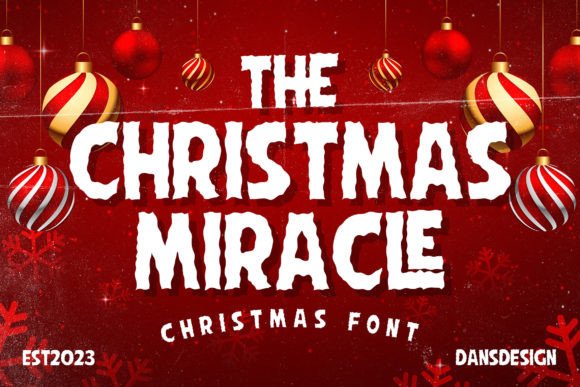
Introducing The Christmas Miracle Font, a delightful and charming addition to your font collection. Created by Dansdesign, this Comic display font is designed to bring a burst of joy and playfulness to your designs. With its unique style and captivating appeal, it is the perfect choice for adding a touch of magic to any project.
This font is not just your ordinary display font; it is a cute and sweet companion that will make your designs come alive. Whether you are designing a modern resume, a holiday greeting card, or a festive poster, The Christmas Miracle Font will instantly elevate your creations to a whole new level.
Imagine the reactions you will receive when your audience sees your designs adorned with this enchanting font. It will captivate their attention and evoke a sense of wonder and excitement. The Christmas Miracle Font is the key to making your creations unforgettable and standing out from the crowd.
With its eye-catching and playful character, this font is perfect for adding a whimsical touch to children's books, party invitations, or even social media graphics. It effortlessly conveys a lighthearted and friendly atmosphere, making it an ideal choice for any project that seeks to evoke positive emotions and create a lasting impression.
But don't be fooled by its charm; The Christmas Miracle Font is also highly versatile. Its clean and legible design ensures that it remains readable even in smaller sizes. This means you can use it for a wide range of applications, from branding projects to website headers, ensuring consistency and a touch of elegance throughout.